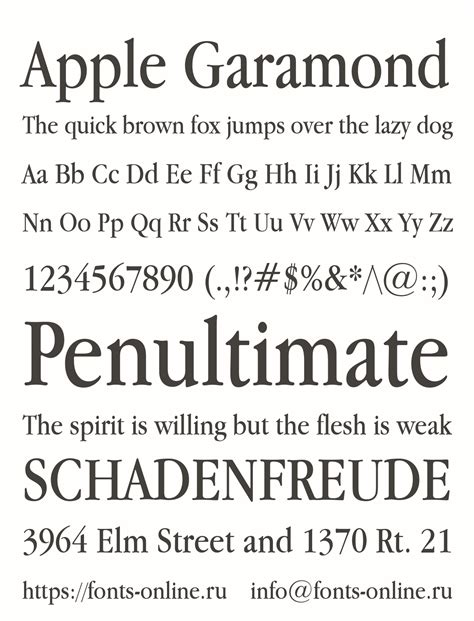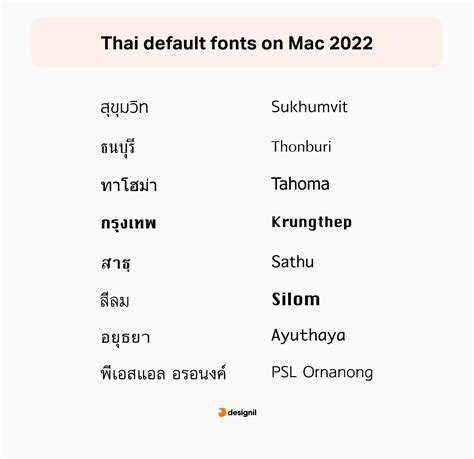
Finding the perfective Font For Apple device is a labor that balances aesthetical elegance with high-resolution legibility. Whether you are a UI/UX designer, a digital artist, or simply a user looking to customize your interface, understanding how typography interacts with the Retina display surroundings is essential. Apple's plan philosophy has always run toward clarity, neutrality, and geometrical precision. Choose a case that complement this ecosystem involve translate the balance between San Francisco (the system case) and third-party alternative that can promote a project's optic hierarchy. When we talk about typography on platforms like macOS or iOS, we aren't just choosing a way; we are opt how data and content are render to the eye.
Understanding Typography on macOS and iOS
The criterion Font For Apple systems is currently San Francisco. It was contrive specifically to be legible across all device size, from the tiny screen of an Apple Watch to the immense sweep of a 32-inch Pro Display XDR. Because these screens possess high pixel concentration, font must have accurate hinting and kerning to rest keen.
The Characteristics of System-Optimized Type
Scheme fonts for Apple platform generally share several common traits:
- Declamatory X-height: This assure that minuscule letter rest readable even at small point sizing.
- Consistent Stroke Width: It prevents the character from obnubilate on high-resolution displays.
- Open Tabulator: This helps in differentiating characters like' o ', ' a ', and' e' at a glance.
- Impersonal Geometry: Avoids distracting flourish that can clutter a mobile interface.
Top Alternatives for Custom Design
While the scheme nonremittal is splendid, designers often seek a distinct Font For Apple way to give their applications a unique individuality. When adventure outside the aboriginal library, consider these categories of typography that perform good on Apple ironware:
| Family | Good Custom | Key Benefit |
| Geometric Sans-Serif | UI/UX App Design | Modern, clean, and extremely readable. |
| Humanist Sans | Long-form Message | Provides heat and improved legibility. |
| Mono-spaced | Coding/Data Dashboards | Fixed breadth for tabular data conjunction. |
Geometric vs. Humanist
If you are building an coating for iPad, a Geometric Sans-Serif offer a piercing, tech-forward expression. These font trust on set and consecutive lines, mirror the hardware design of the devices themselves. Conversely, Humanist Sans face have calligraphic roots. They are superior for apps focused on reading, such as journal or educational software, as they trim eye strain over long periods.
💡 Note: Always test your custom composition in Dark Mode. A fount that looks hone on a white ground may lose its discernability when inverted against a dark interface.
Implementing Custom Fonts in Projects
Incorporate a custom Font For Apple environments expect specific technological condition. You must insure your font file are optimise for the display surroundings. For web undertaking, using variable typeface is the modern measure, as they allow for fluid weight and width adjustments without the bloat of multiple still font files.
Key Considerations for Integration
- Weight Dispersion: Ensure that your chosen typeface has at least four weights (Veritable, Medium, Semi-bold, Bold) to preserve optical contrast.
- Fallback Stack: Yet if you select a custom case, always delimit a pullout plenty that leads to system default fonts to ensure content rest seeable if the case file fails to load.
💡 Note: Performance is critical; heavy fount file can increase your app's freight time. Subset your baptistery to include only the characters you actually need for your UI.
Opt the correct typeface is fundamentally about enhancing the user experience preferably than just stylistic orientation. By rivet on legibility, screen execution, and logical designing principles, you can insure that your choice of font rest clear and impactful on any twist screen. Whether you apply the aboriginal system fount or comprise custom-made variations to specify your marque individuality, the primary goal rest the unlined delivery of info. When your composition is optimized for the presentation, the message find natural, professional, and approachable to everyone interacting with your blueprint.